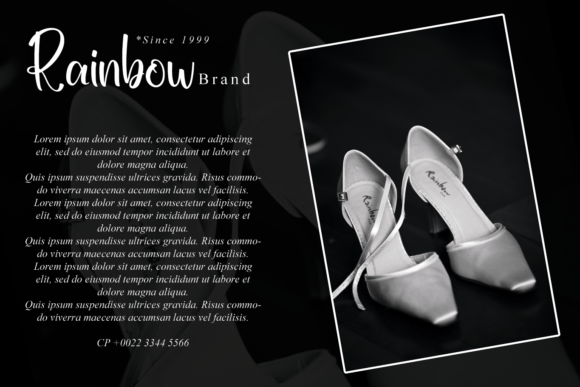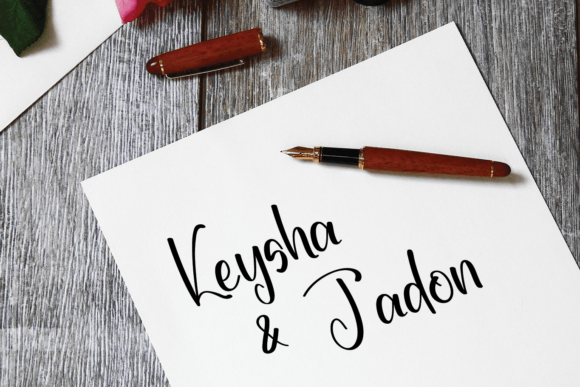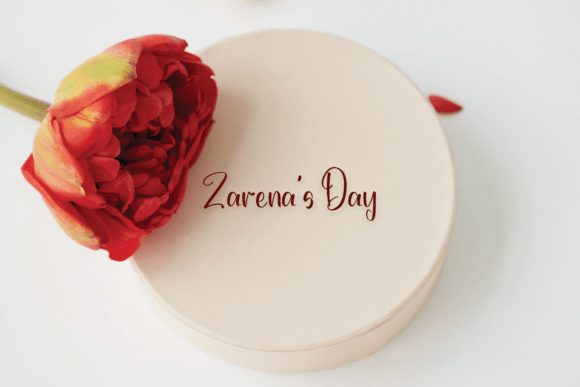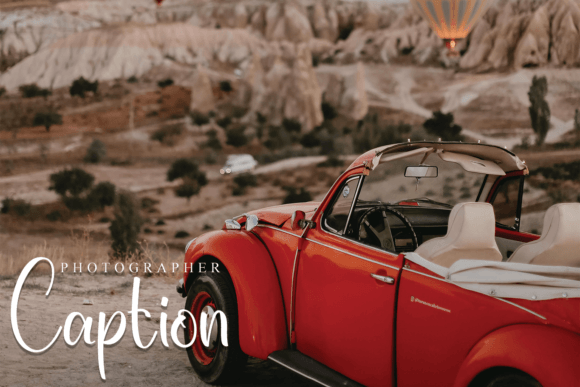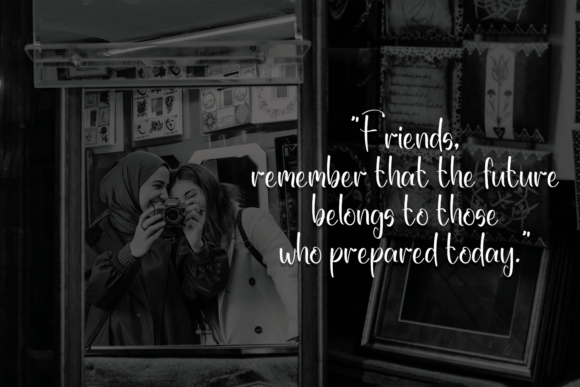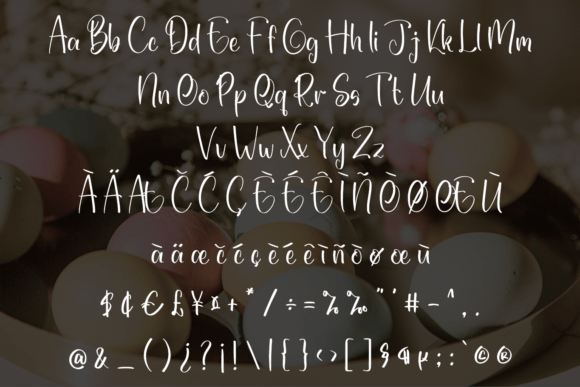
Introduction to My Easter Font
Have you ever found yourself in the middle of a creative project, searching for the perfect font to bring your design to life? I’m sure many of us have been there – scrolling through font libraries, trying to find that one special font that captures the essence of our vision. It’s like searching for a needle in a haystack, but with a much more exciting outcome!
That’s where My Easter Font comes in – a beautiful, flowing, and elegant handwritten font that’s sure to make your designs stand out. With its high-quality design and transparent background, this font is a design resource like no other. Whether you’re creating gorgeous wedding invitations, beautiful stationery art, or eye-catching social media posts, My Easter Font is the perfect addition to your creative arsenal.
Key Features of My Easter Font
- High-quality design: My Easter Font is carefully crafted to provide a unique and eye-catching look for your creative project.
- Transparent background: The transparent background of My Easter Font allows for seamless integration with any design, giving you complete creative freedom.
- Size and resolution: This font comes in a range of sizes, from 12 to 72 points, and is designed to be used at a resolution of 300 DPI for optimal clarity.
- Unique characteristics: My Easter Font features intricate details and decorative elements, making it perfect for adding a touch of whimsy and personality to your design.
- Perfect for Easter-themed projects: Whether you’re creating invitations, decorations, or social media graphics, My Easter Font is the perfect design resource to help you get into the Easter spirit.
Honest Review: My Easter Font
I recently had the chance to work with My Easter Font on a creative project, and I must say, it was a pleasant surprise. As a designer, I’m always on the lookout for high-quality design resources that can elevate my work, and this font definitely fits the bill.
- ✨ High-quality design – The font is crisp, clean, and visually appealing, making it perfect for a variety of design projects.
- ✨ Unique and creative – The Easter theme is a great addition to any spring or holiday project, adding a fun and festive touch.
- ⚠️ Limited character set – The font only includes uppercase and lowercase letters, numbers, and a few punctuation marks.
- ⚠️ No bold or italic options – If you need bold or italic text, you may need to find a different font or use a different design element.
Overall, I’m impressed with My Easter Font. It’s a great addition to any designer’s toolkit, and the free download makes it an excellent choice for small projects or personal use. While it may have some limitations, the high-quality design and unique theme make it a great resource to have on hand.
Getting the Most Out of My Easter Font
For the best results, use My Easter Font in conjunction with other high-quality design resources. Experiment with different font combinations and styles to create a unique look that suits your creative project. My Easter Font is perfect for Easter-themed designs, but it can also be used in other creative contexts.
My Easter Font is commonly used in Easter-themed designs, such as invitations, cards, and decorations. It’s also a great resource for spring-themed designs, like party invitations and promotional materials. With its high-quality design and transparent background, My Easter Font is a versatile resource that’s perfect for a wide range of creative projects.
Q: Can I use My Easter Font on a transparent background?
Yes, My Easter Font has a transparent background, making it perfect for use on colored or patterned backgrounds. Simply place the font on top of your desired background, and it will blend seamlessly.